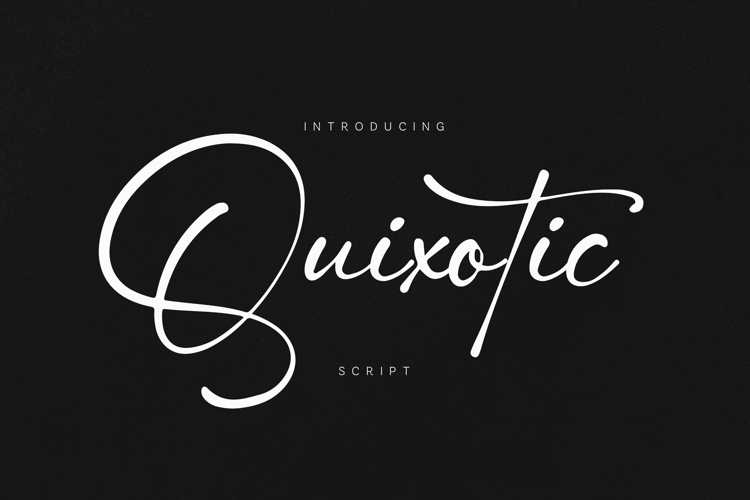
Quixotic Script Font Elegant Signature Handwritten
Quixotic is an elegant handwritten script font designed to capture natural flow and expressive movement. With its smooth curves, stylish swashes, and refined stroke contrast, it brings a sophisticated touch to any design.
Inspired by modern calligraphy and signature lettering, Quixotic is perfect for branding, invitations, social media, and luxury projects. Its fluid letterforms and multilingual support make it highly versatile for both digital and print use.
Whether you’re creating logos, signatures, or romantic compositions, Quixotic delivers a graceful and authentic handwritten feel.
Features• Uppercase & lowercase
• Smooth connecting strokes
• Natural handwritten style